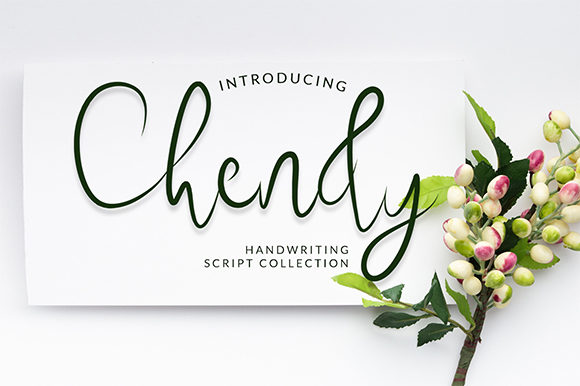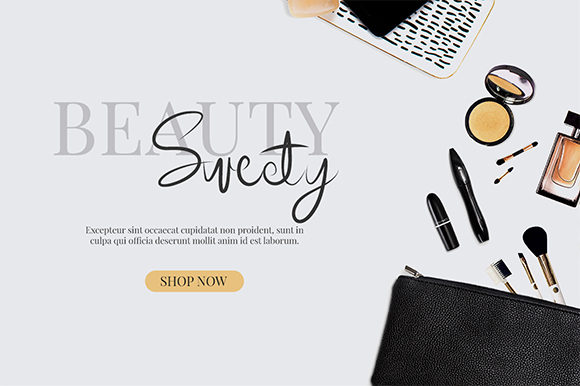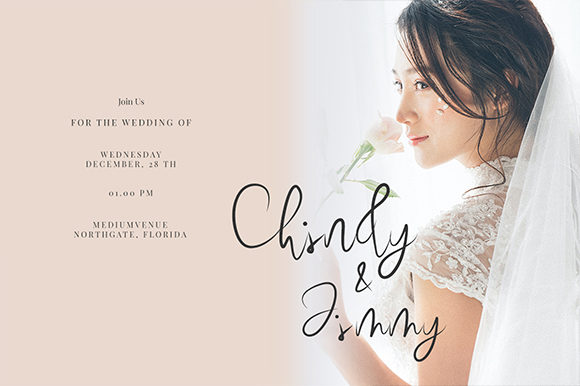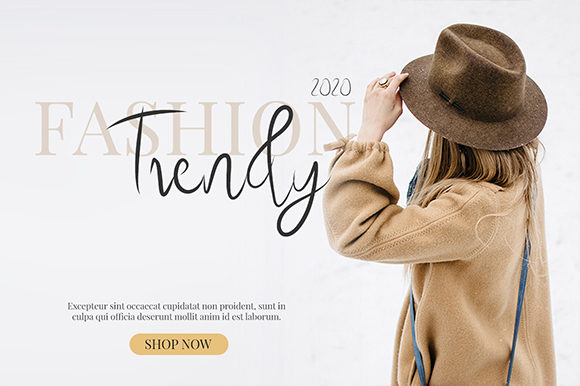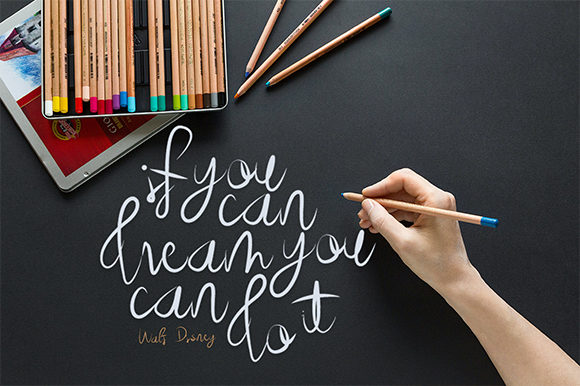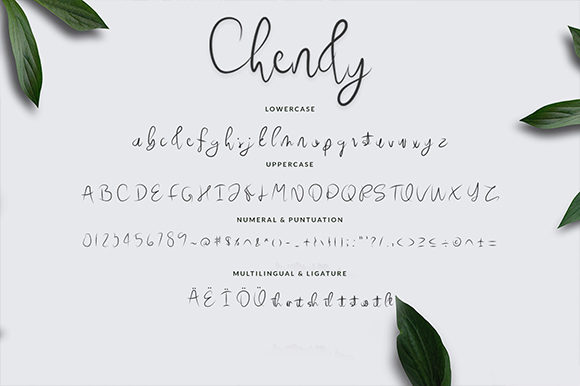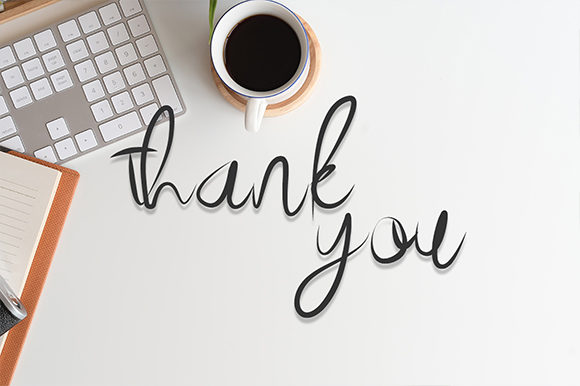
Chendy Font
About Chendy Font
Chendy is a cute and casual handwritten font with a very friendly feel. This font is the perfect fit for all of your logos, branding, social media, and crafty DIY projects.